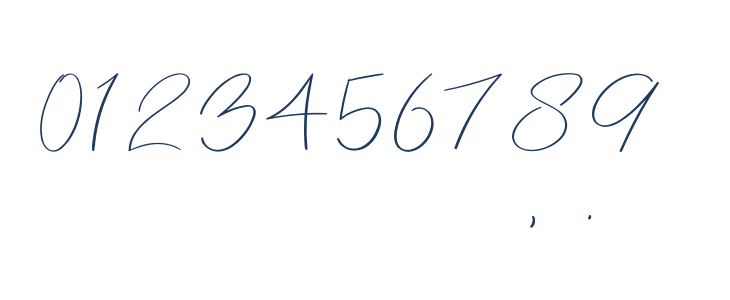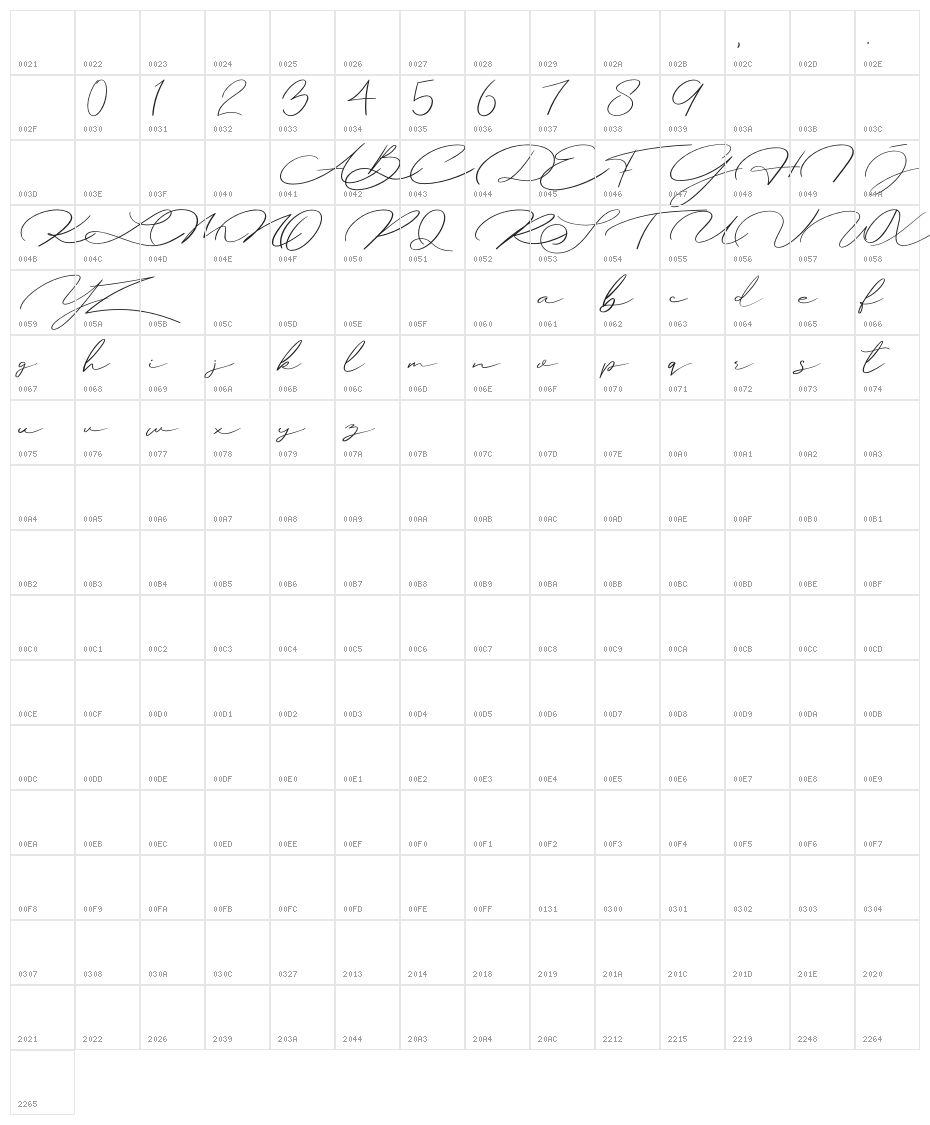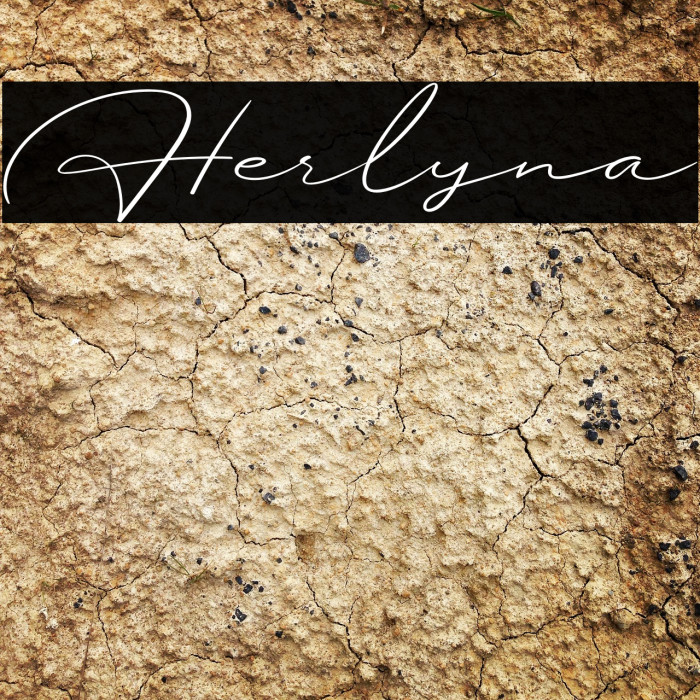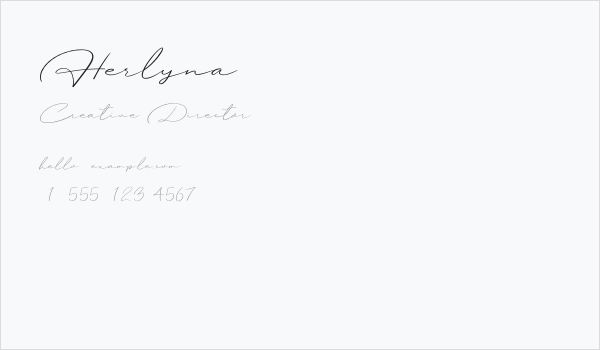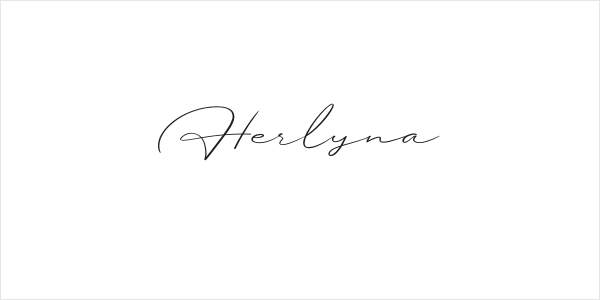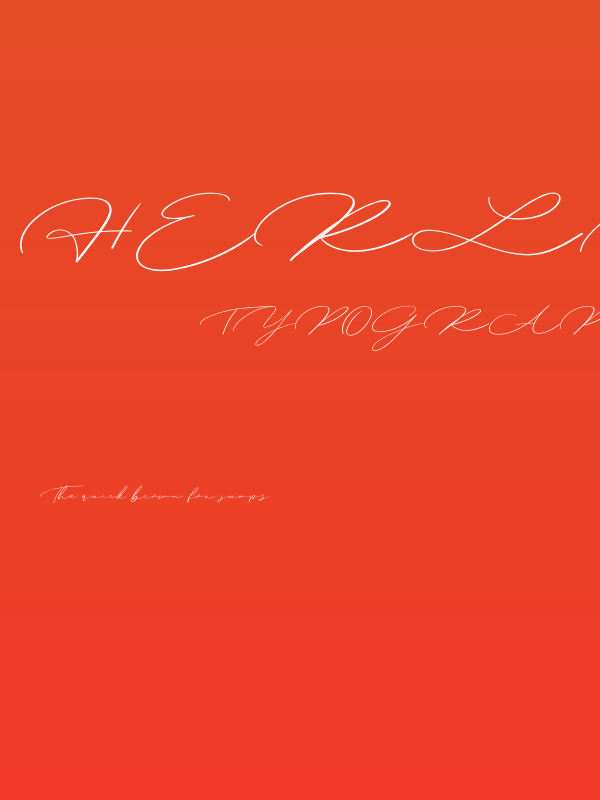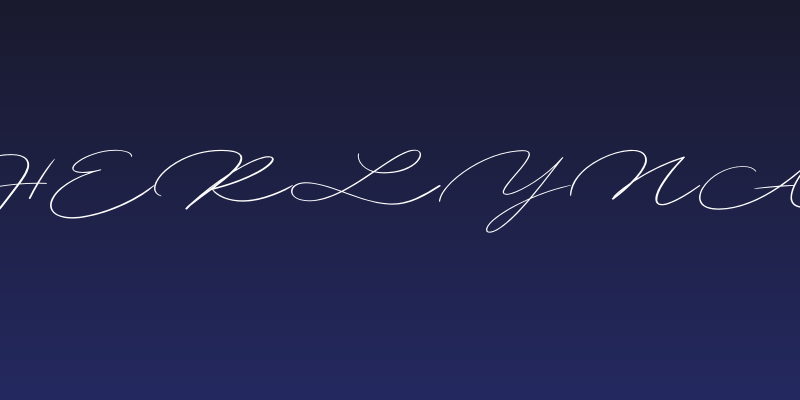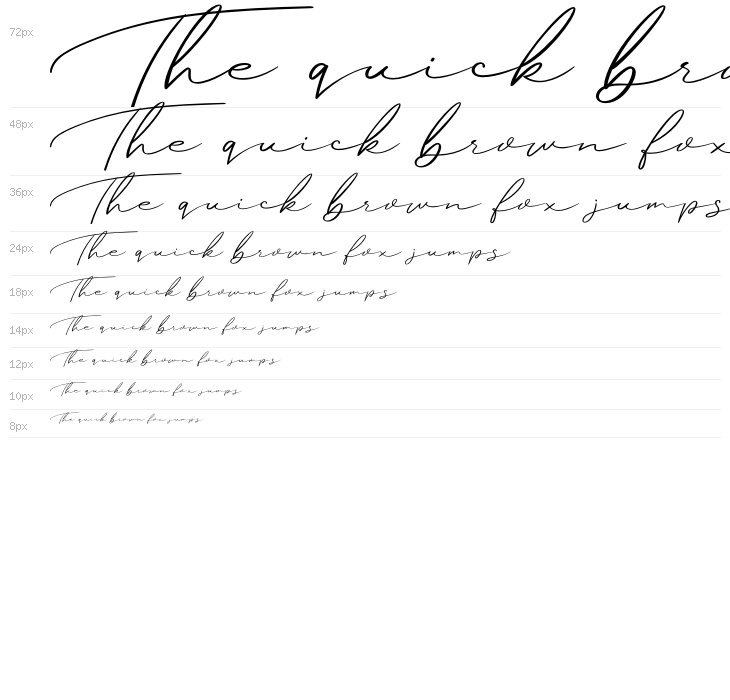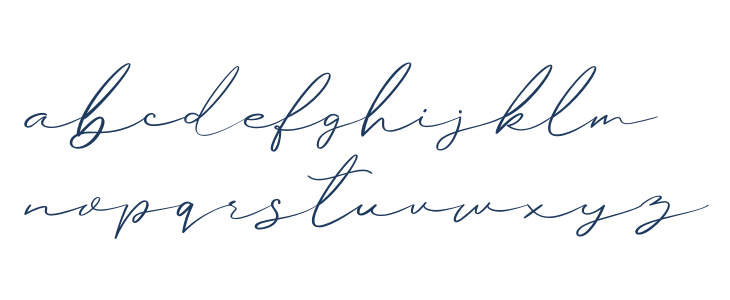
Herlyna Font
Herlyna Description
This font features an elegant, flowing script style that exudes sophistication and grace. The uppercase letters are delicately crafted with thin, sweeping lines that give a sense of fluidity and movement. The lowercase letters maintain a consistent style, with smooth curves and connections that enhance the overall cohesiveness of the font. The numerals are designed with a similar elegance, providing a harmonious look across all characters. This font is perfect for projects that require a touch of elegance and refinement, such as wedding invitations, branding, and high-end product packaging.
| Proposed Projects | Ideal for wedding invitations, luxury branding, and elegant packaging designs. |